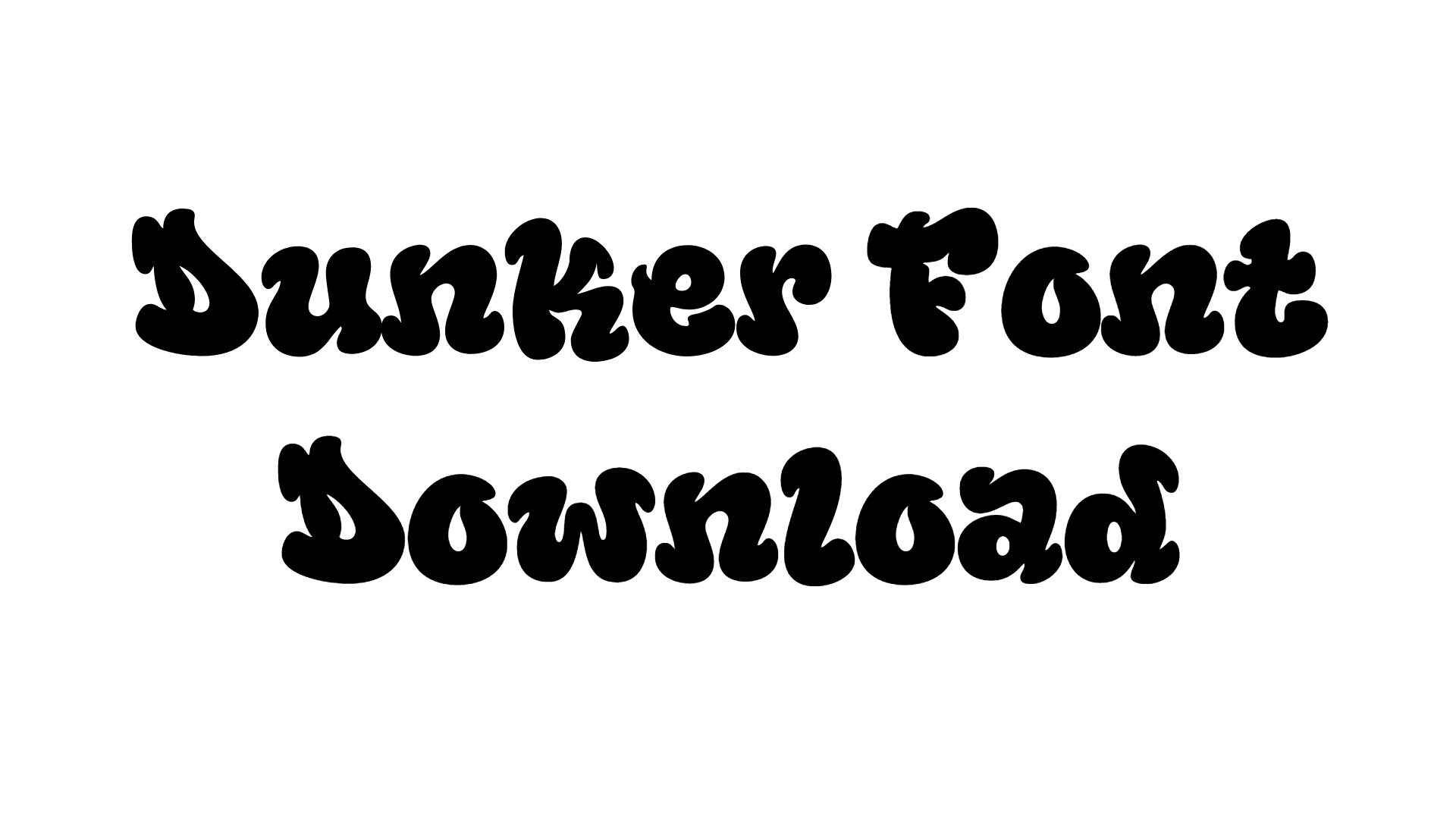
Dunker Font
Dunker
Dunker is a graffiti font designed by Mans Greback and published by Mans Greback AB. It has the bold, energetic shapes of spray-painted street lettering. It's a free download, and you can try it with your own text in the preview above first.
What You Can Type With Dunker
Dunker covers the full alphabet in upper and lowercase, plus all ten numbers, so you can set names, dates and prices without switching fonts. Common punctuation such as &, !, ? and @ is included as well. It also has the accented letters you need for Spanish, French, German, Portuguese and Italian.
Where Dunker Works Best
Think of Dunker for streetwear, album covers and urban posters. Use it big and give it room. Graffiti letters are packed with detail, so they look best as one or two words, not full sentences.
Does Dunker support accented letters?
Yes. Dunker includes the accented letters needed for Spanish, French, German, Portuguese and Italian, so it works for more than just English.
What fonts pair well with Dunker?
Balance it with a heavy, simple sans serif like Bebas Neue or Anton for the supporting text.